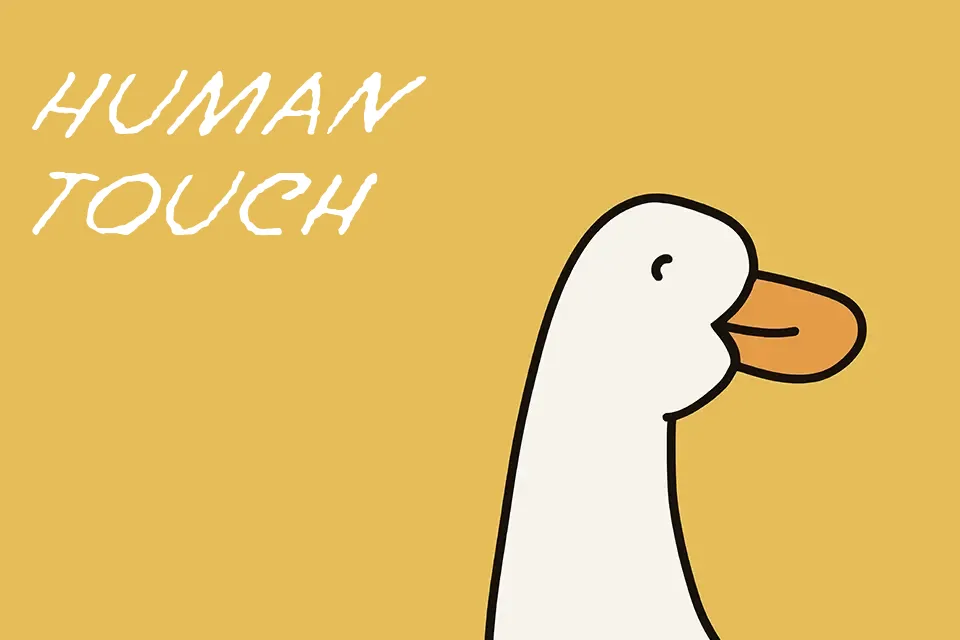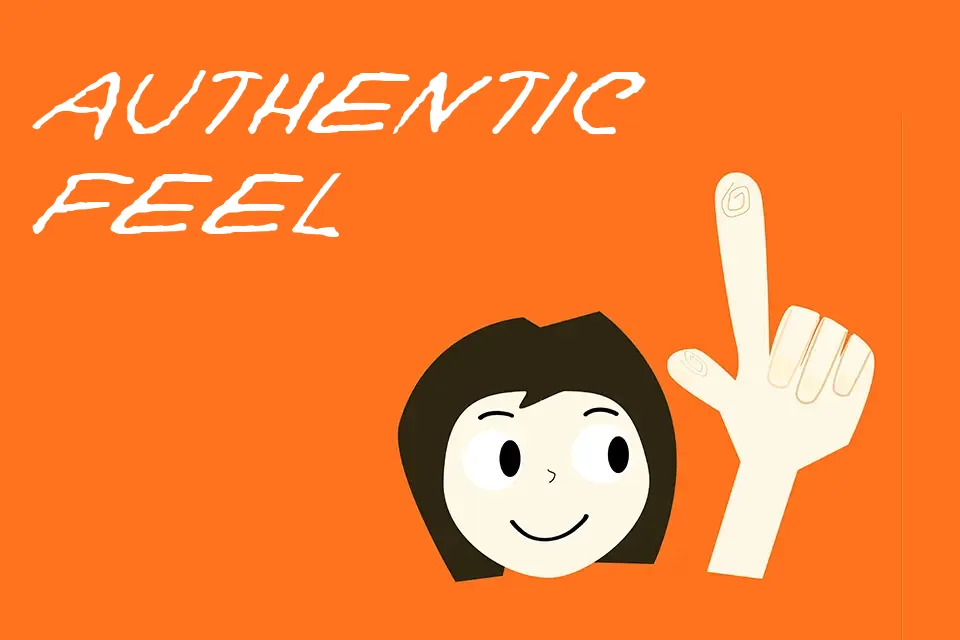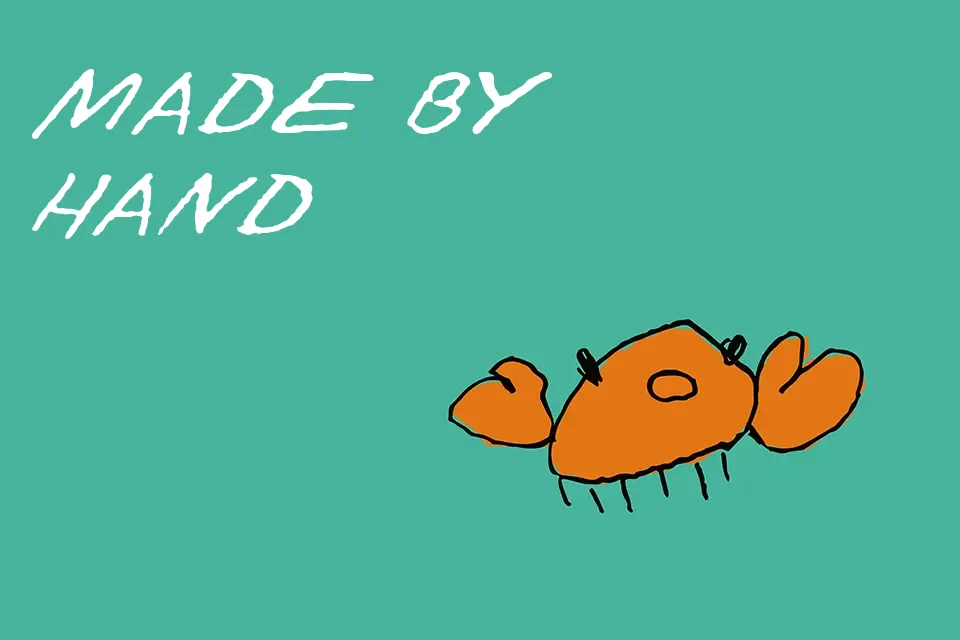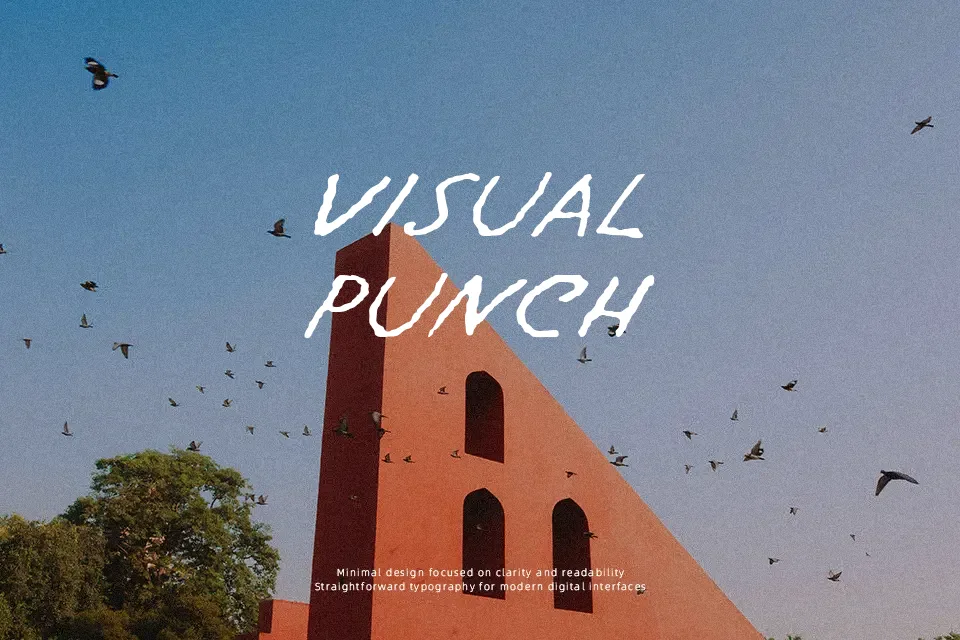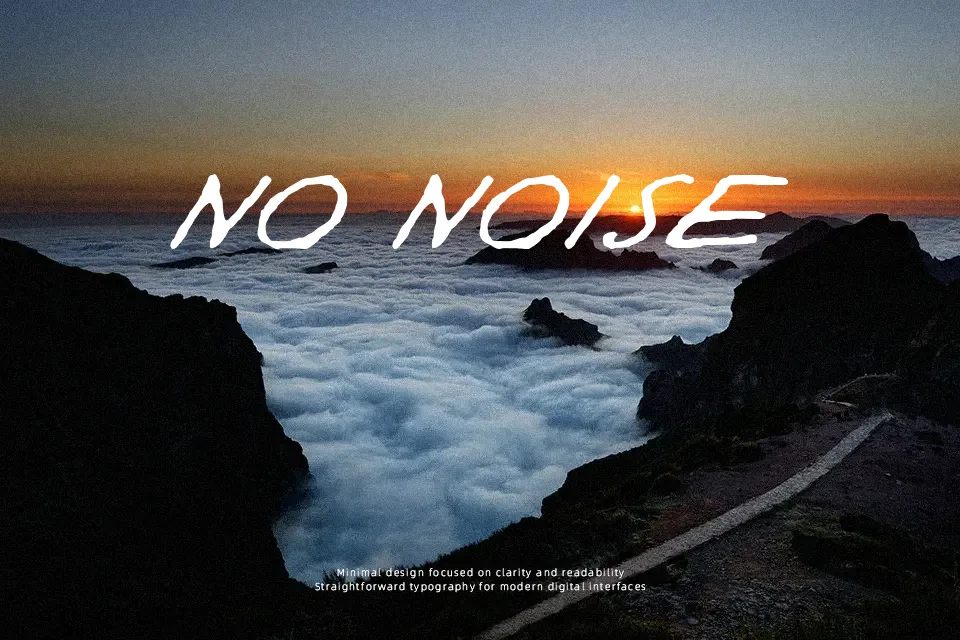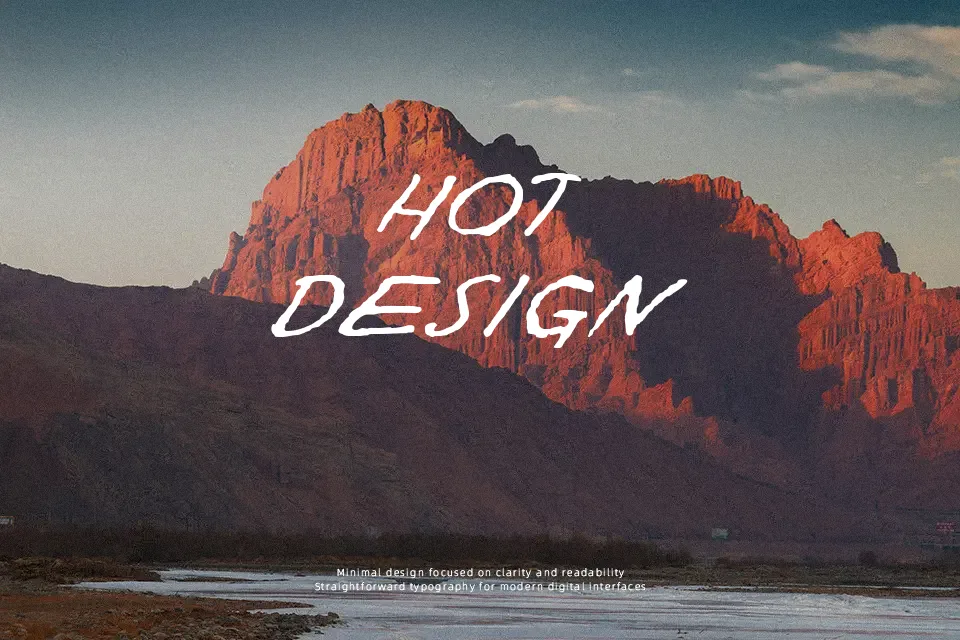
Topuz Font
Designed by Aleksandar Stevanov
Featuring relaxed, hand-drawn contours and an energetic rhythm, Topuz Font combines uniform monoline weight with slightly rounded terminals and an organic rightward slant. Proportions remain comfortably balanced between uppercase and lowercase sets, while open internal counters preserve clean recognition across medium display sizes. Spacing sits somewhat compact yet consistent, establishing a steady tempo that thrives in graphic novel speech bubbles, casual merchandise graphics, and lively cartoon headers. However, the informal stroke curvature and stylized letterforms lose clarity when set in dense editorial layouts or small caption text. The balanced letterforms maintain dependable clarity in short display headlines.
Best For: comic book dialogue, children’s book covers, animated video titles, casual packaging labels
Not Ideal For: dense editorial paragraphs, corporate financial reports, small interface labels, legal contracts
Perfect for advertising, headline, and kids, with a creative and comic style.